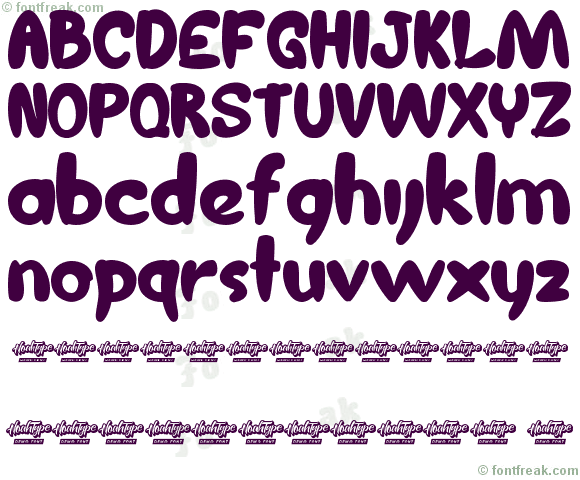
Chunky Unicorn Demo
Chunky Unicorn Demo is a captivating display font created by Noah Type that embodies a playful and whimsical aesthetic. This font falls into the decorative category, characterized by its chunky letterforms that exude a sense of fun and creativity. The strokes are bold and rounded, offering a substantial weight that makes it stand out in any design. The overall spacing is balanced, ensuring readability while maintaining a light-hearted charm. Its unique, playful style is complemented by subtle irregularities in the letter shapes, adding an organic touch that enhances its appeal.
This font is ideal for a variety of creative projects. It can be used for designing vibrant wedding invitations that bring a touch of whimsy to the special day. Additionally, it is perfect for children's book covers, where its fun characters can engage young readers. Movie posters that aim for a light-hearted or comedic tone will also benefit from the Chunky Unicorn Demo font, as it captures attention and communicates a sense of joy. Restaurant menus looking to convey a casual and inviting atmosphere can leverage this font to create a friendly vibe. Furthermore, social media graphics aimed at content creators can utilize this font to grab attention and express personality.
The target audience for the Chunky Unicorn Demo font includes graphic designers, small business owners, and content creators who are looking to inject personality and charm into their projects. This font stands out due to its unique combination of boldness and playfulness, making it a versatile choice for anyone wanting to leave a memorable impression. For those interested, the Chunky Unicorn Demo font free download opens the door to endless creative possibilities, allowing users to explore its delightful character in their work.